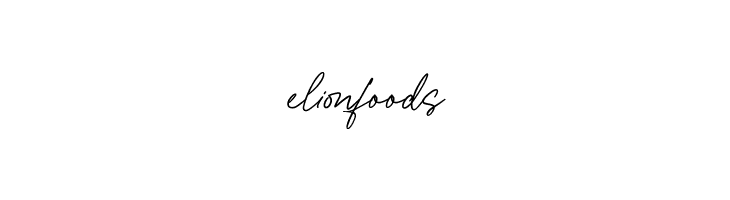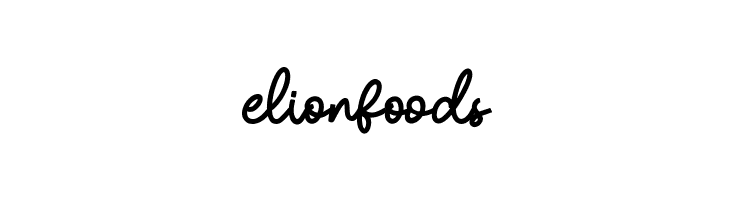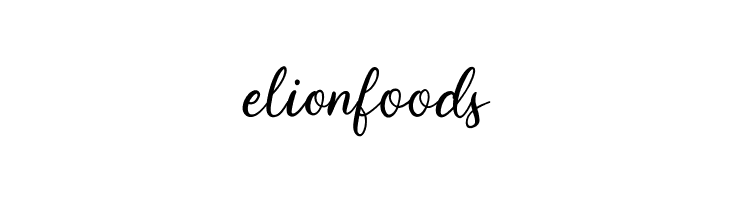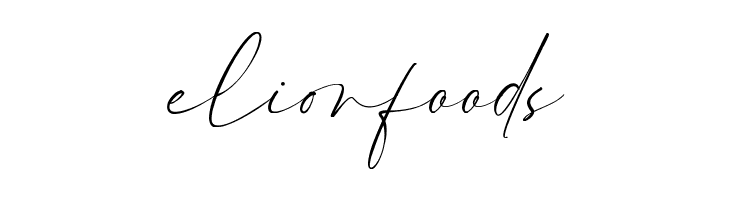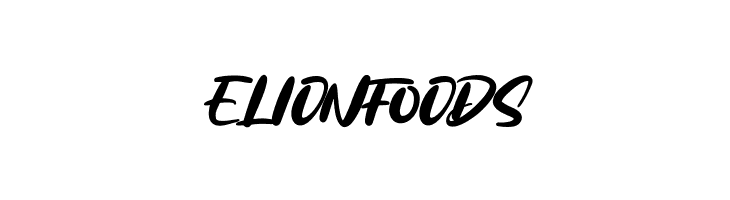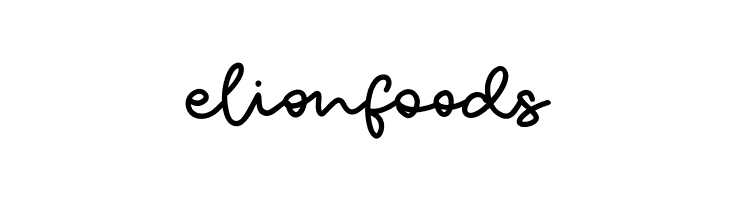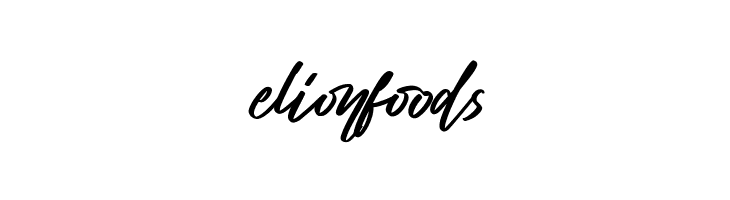
An elegant, flowing script font with smooth, cursive strokes.
A fluid and elegant script font with interconnected, calligraphic letterforms.
A playful and elegant script font with flowing, cursive letterforms.
An elegant script font with flowing, cursive letterforms and intricate swashes.
A graceful and fluid script font with elegant, flowing lines.
A whimsical handwritten font with playful loops and delicate strokes.
A bold, modern script font with dynamic, flowing strokes.
A playful, casual handwritten font with smooth, flowing lines and medium contrast.
An elegant, flowing script font with elongated, sweeping strokes.
A bold, flowing script font with a dynamic, handwritten style.